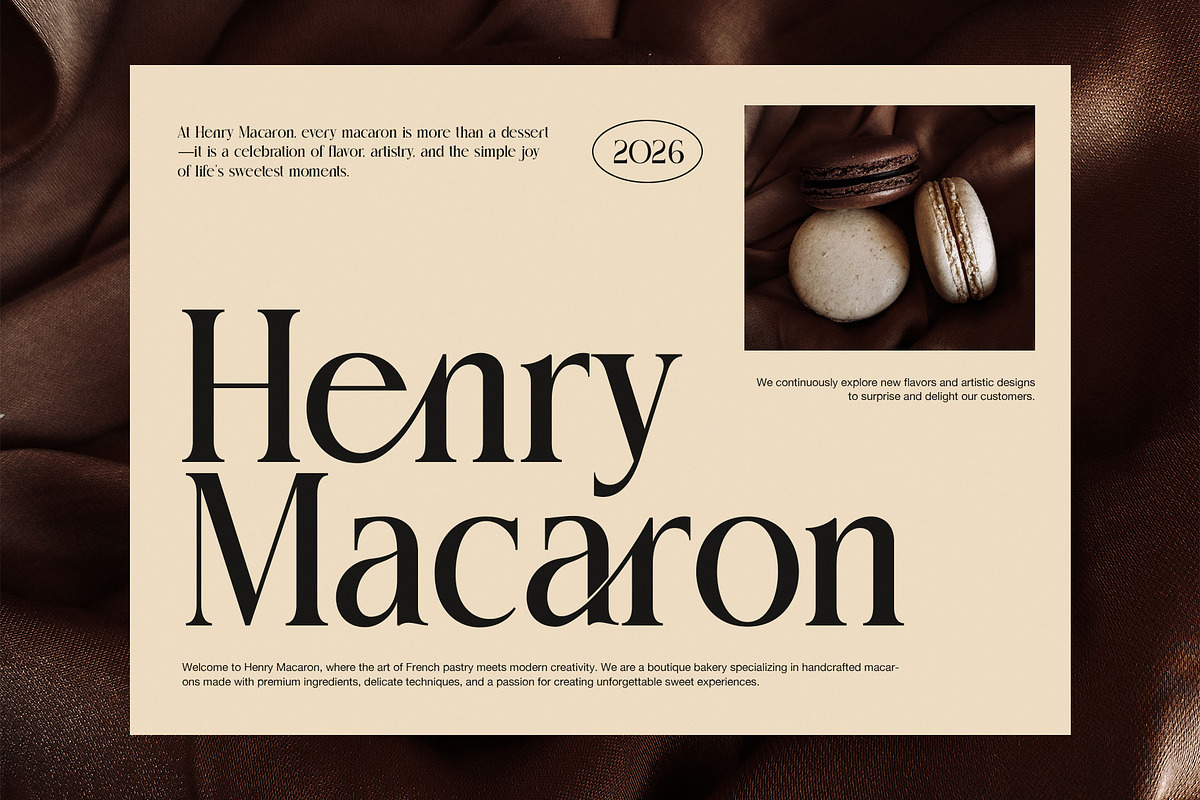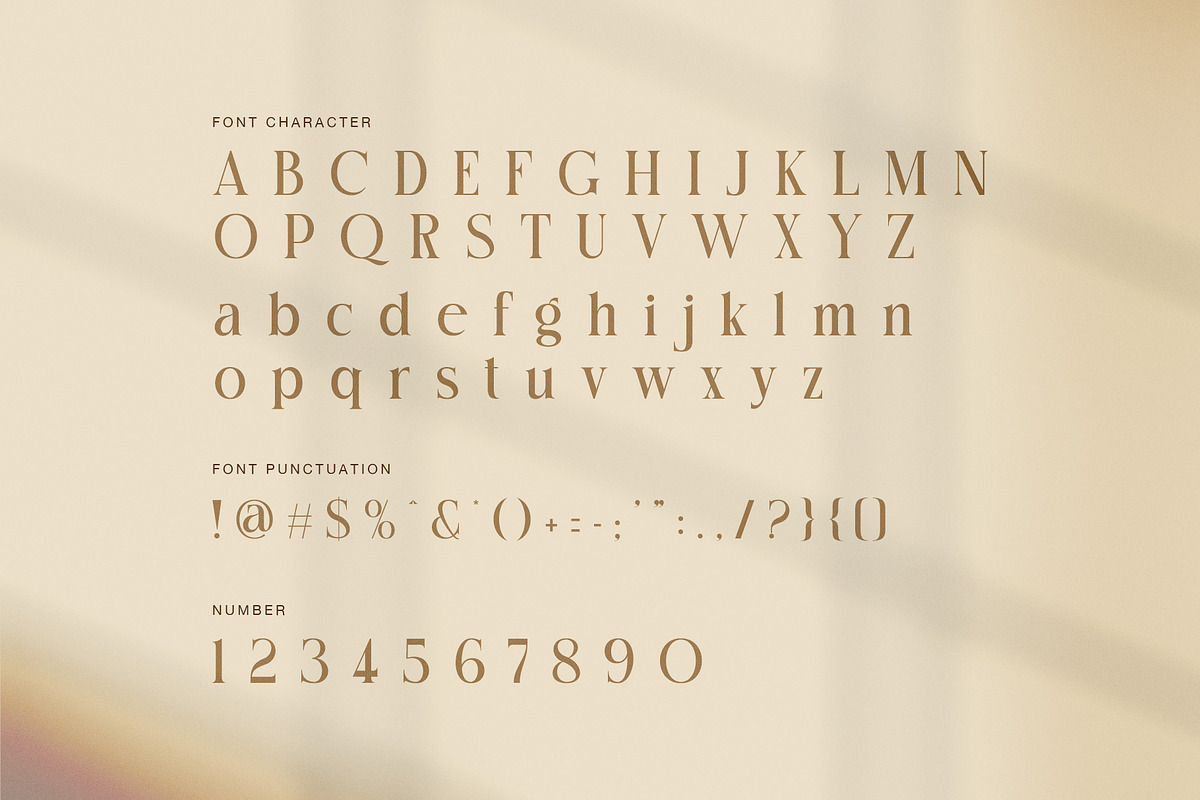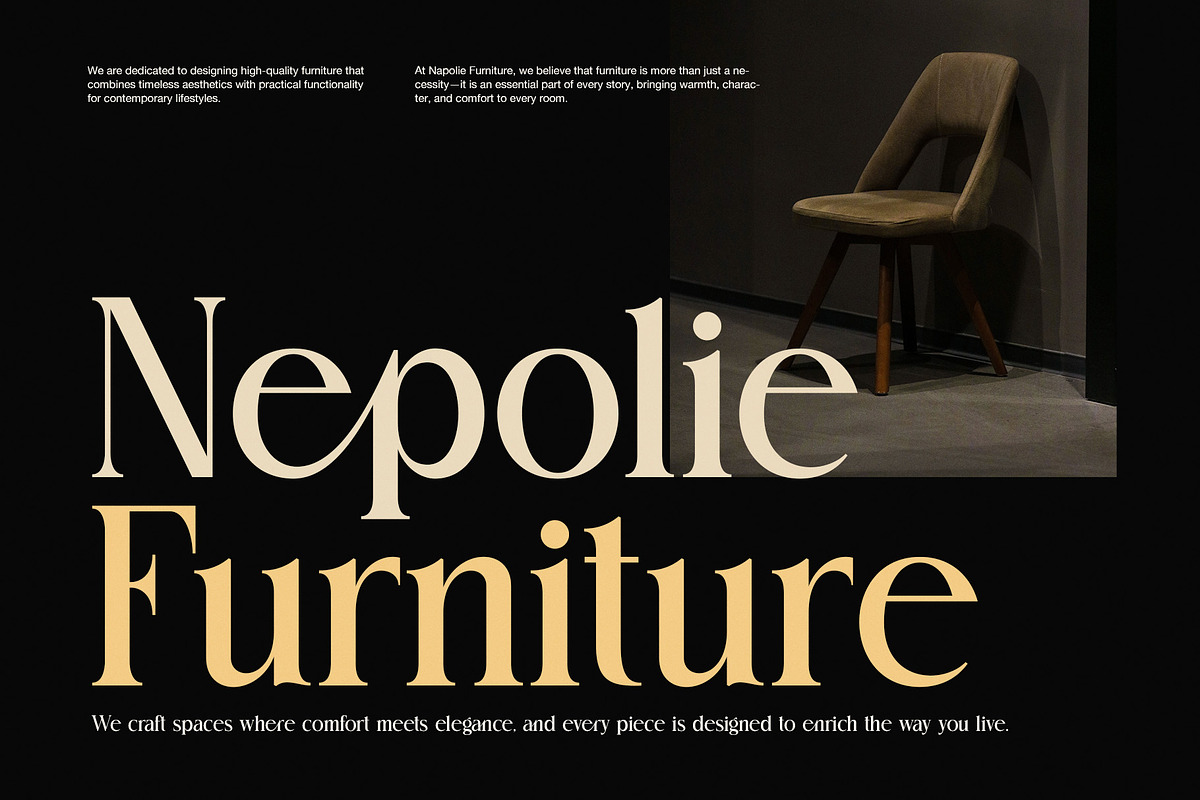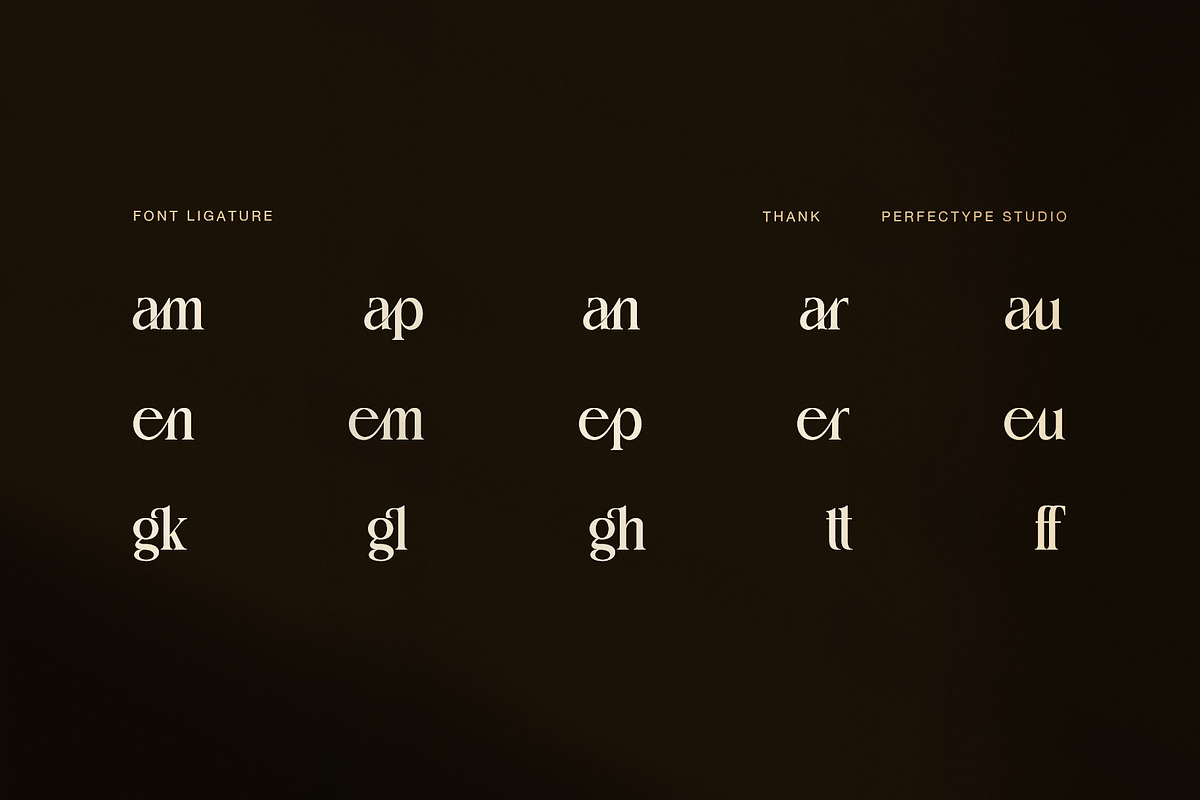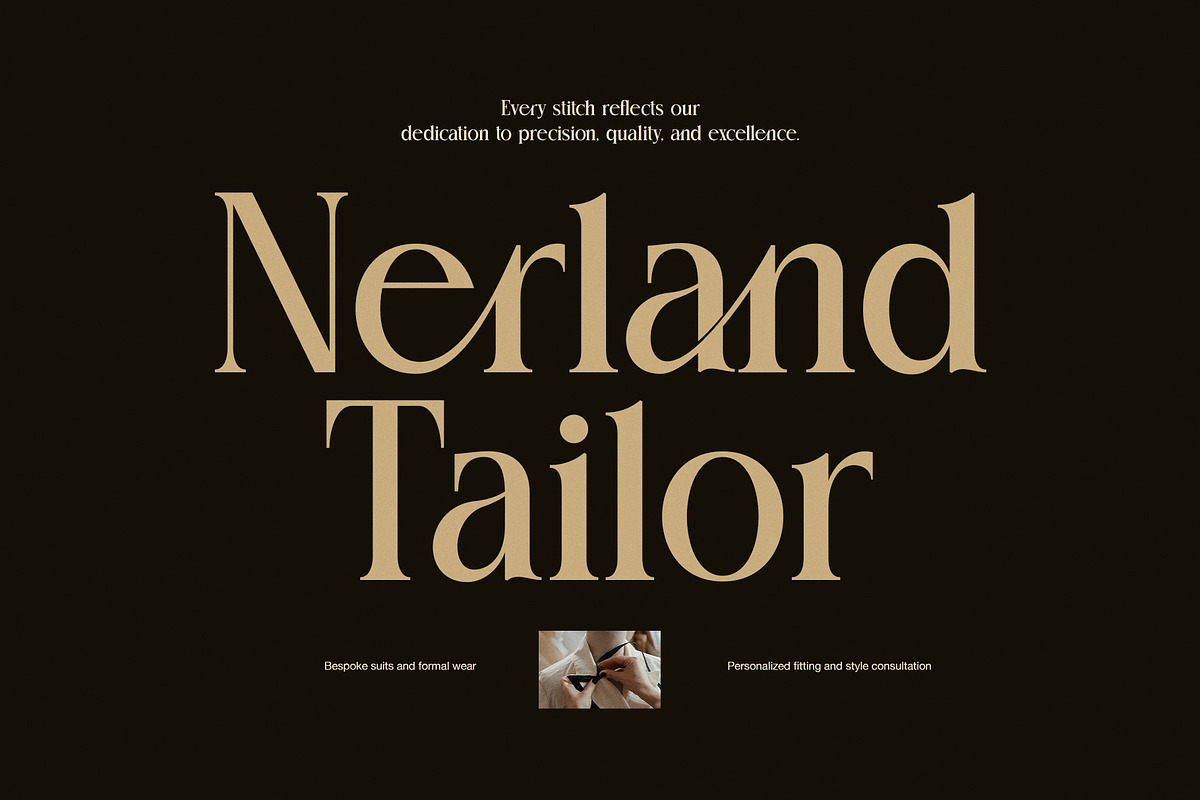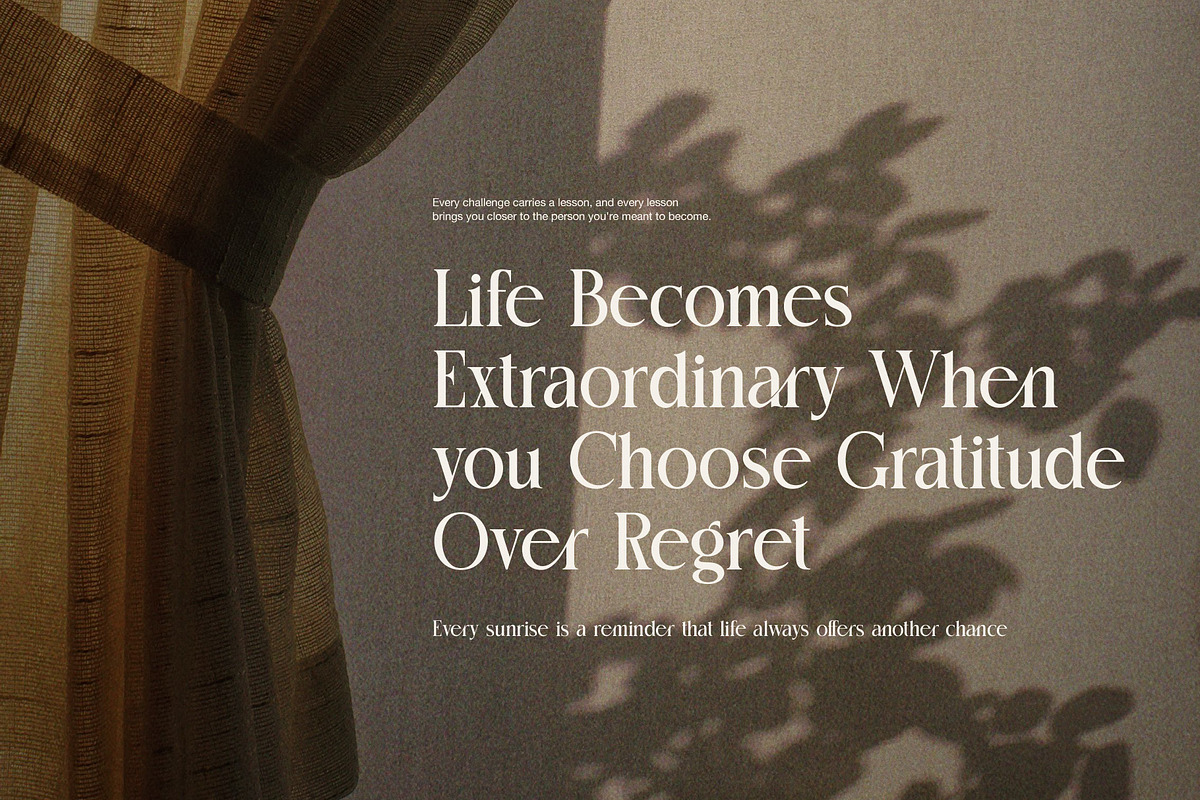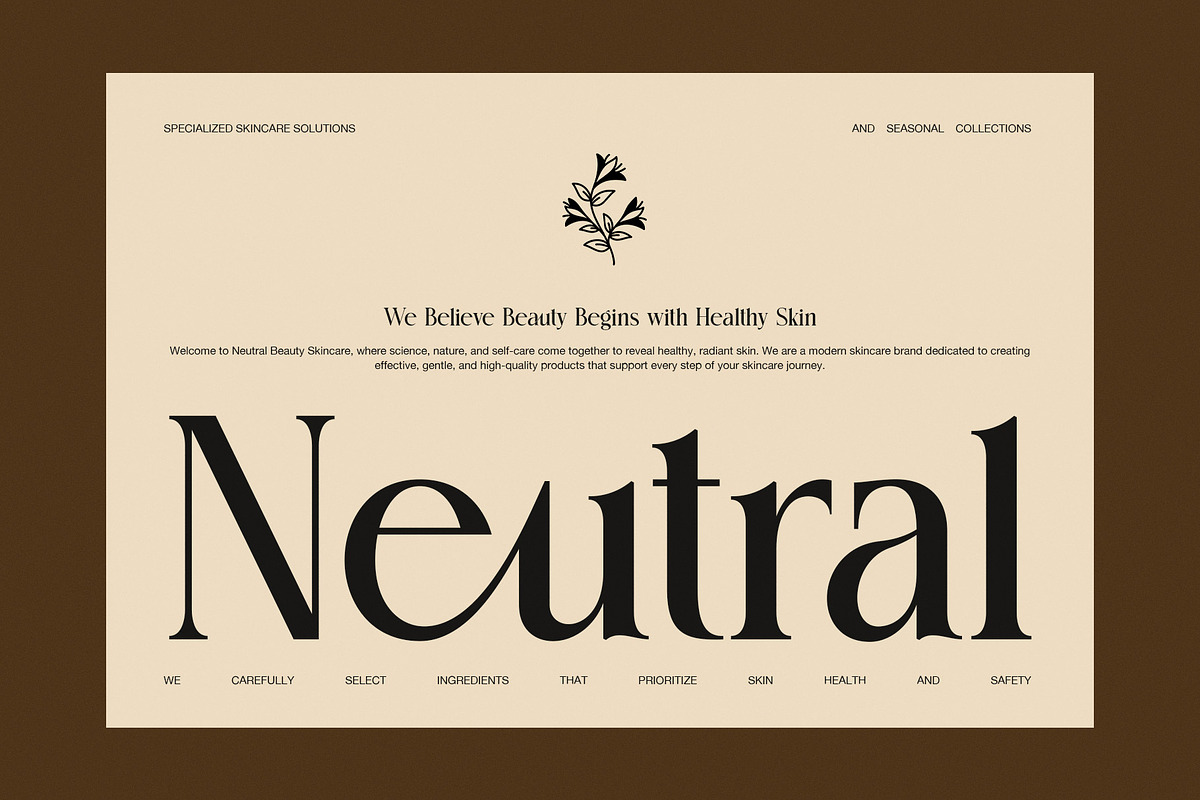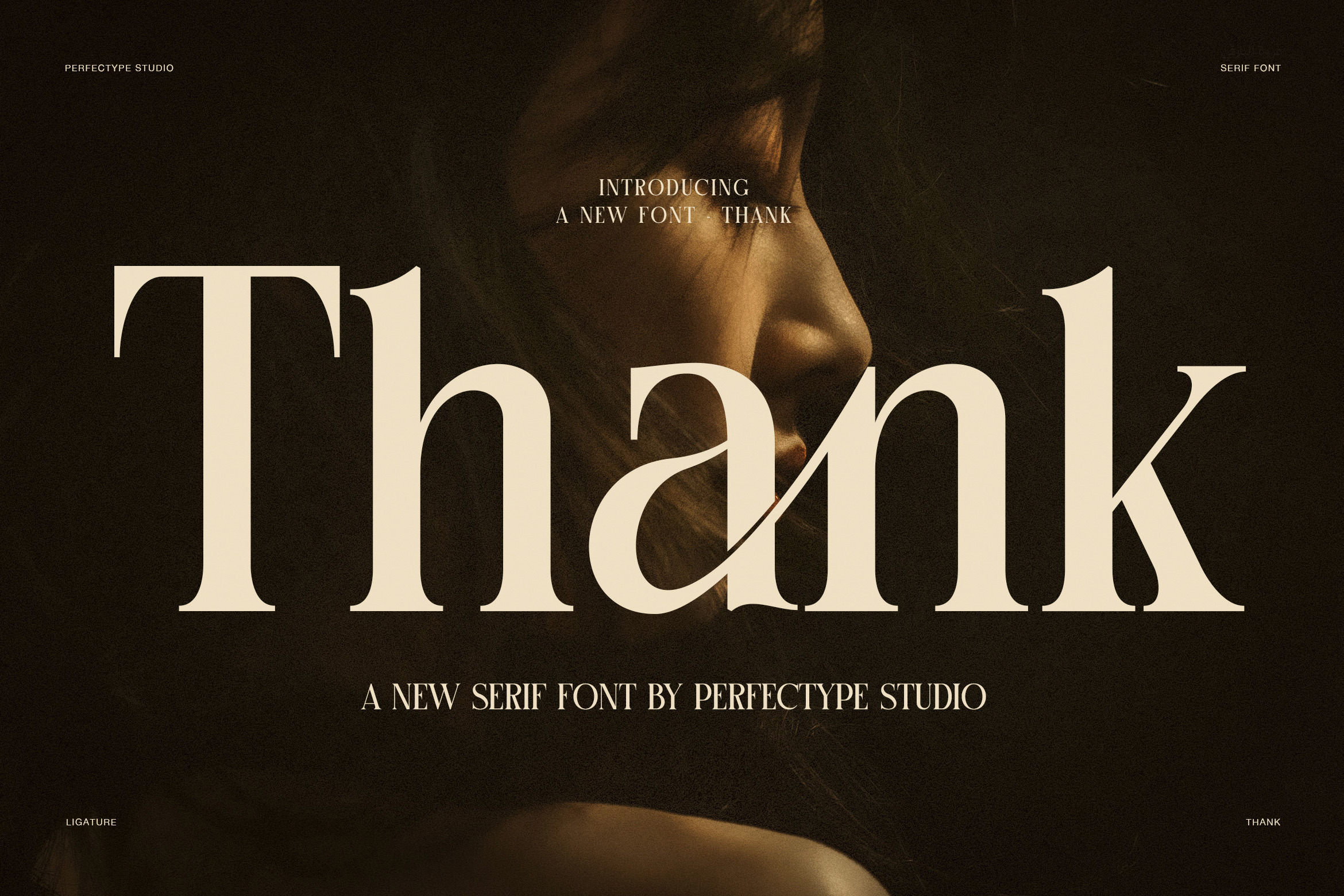
Thank Elegant Serif Font
Thank Elegant High Contrast Serif Font is a refined display typeface created for fashion, luxury branding, and modern editorial design. Its bold strokes meet delicate hairlines, giving every word a graceful yet confident look. As a result, Thank works beautifully when typography needs to become the main focus of a design.
The font combines classic serif details with a fresh fashion feel. Meanwhile, its elegant curves and balanced proportions create a clean rhythm across headlines, logos, and brand names. Because of this, Thank can bring a polished finish to both minimal layouts and expressive visual campaigns.
Elegant Serif for Luxury Branding
Thank has a strong visual character that feels stylish without becoming too decorative. Therefore, it is a great choice for fashion labels, beauty brands, skincare products, boutique identities, and premium packaging.
Its high contrast also makes large headlines stand out. In addition, the refined letterforms work well with photography, neutral colors, and simple layouts. Designers can use Thank to create an upscale mood while keeping the overall composition clean.
Beautiful Ligatures and Refined Details
One of Thank's key features is its collection of carefully designed ligatures. These special letter combinations add personality to words and help create distinctive logo treatments.
The font is ideal for:
Fashion logos and luxury branding
Editorial headlines and magazine covers
Beauty and skincare identities
Perfume and cosmetic packaging
Boutique and lifestyle branding
Wedding invitations and stationery
Restaurant and hotel identities
Social media graphics and posters
Product labels and packaging
Premium advertising campaigns
Moreover, its graceful lowercase forms give names and short phrases a smooth visual flow. Therefore, designers can create expressive typography without adding unnecessary graphic elements.
A Modern Serif for Editorial Design
Thank pairs naturally with a clean sans serif font. For example, use Thank for headlines and logos while using a simple sans serif for body copy. This contrast creates a clear and professional visual hierarchy.
Furthermore, the font works especially well with warm neutrals, black, cream, brown, and other luxury-inspired palettes. Its elegant structure can suit both modern and timeless art direction.
Create Sophisticated Typography with Thank
Whether you are designing a fashion identity, beauty campaign, editorial layout, or luxury package, Thank delivers a memorable visual presence. Its high contrast, refined curves, and stylish ligatures give designers the freedom to create distinctive work.
Ultimately, Thank Elegant High Contrast Serif Font is made for projects that need to feel elegant, modern, expressive, and premium.